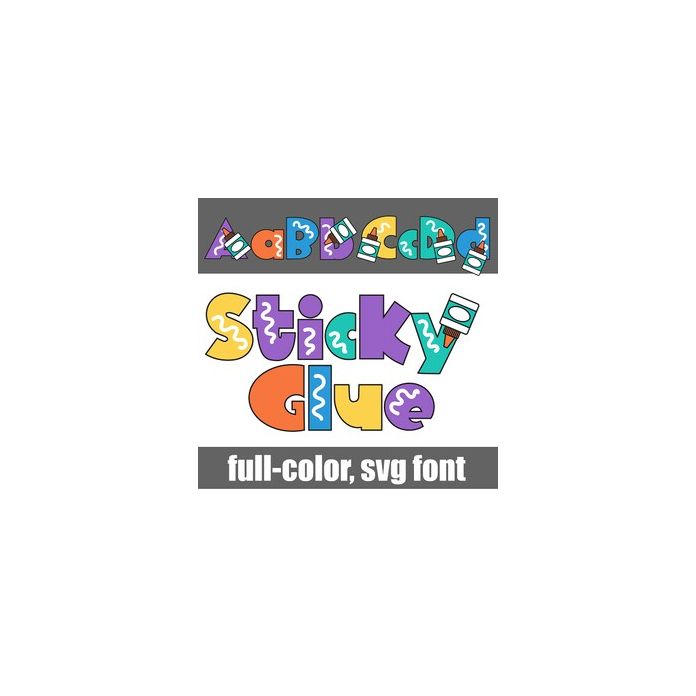
This full-color font features colorful lettering and glue. There is an alt case w/ additional colors you can access through your system or Silhouette's glyph map.